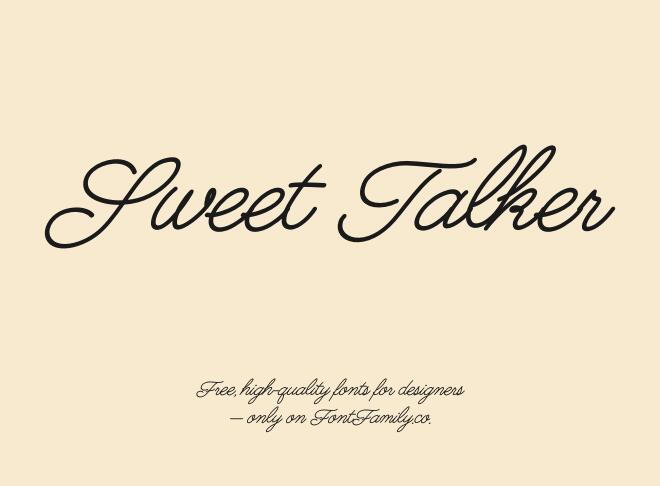
Sweet Talker Font
Sweet Talker Font is a playful, elegant script typeface that perfectly captures a handwritten feel. With its delicate and flowing characters, it adds a touch of charm and sophistication to any design. Its playful nature makes it ideal for casual designs, while its elegance makes it suitable for more formal settings. With a style reminiscent of classic calligraphy, yet with a modern twist, it stands out from other fonts. Sweet Talker Font is incredibly versatile, making it a great choice for a variety of design projects, including logos, invitations, social media posts, and more. Its unique style allows it to add a personal touch, making your designs feel more authentic and engaging. Choose Sweet Talker Font to add a touch of elegance and playfulness to your designs.